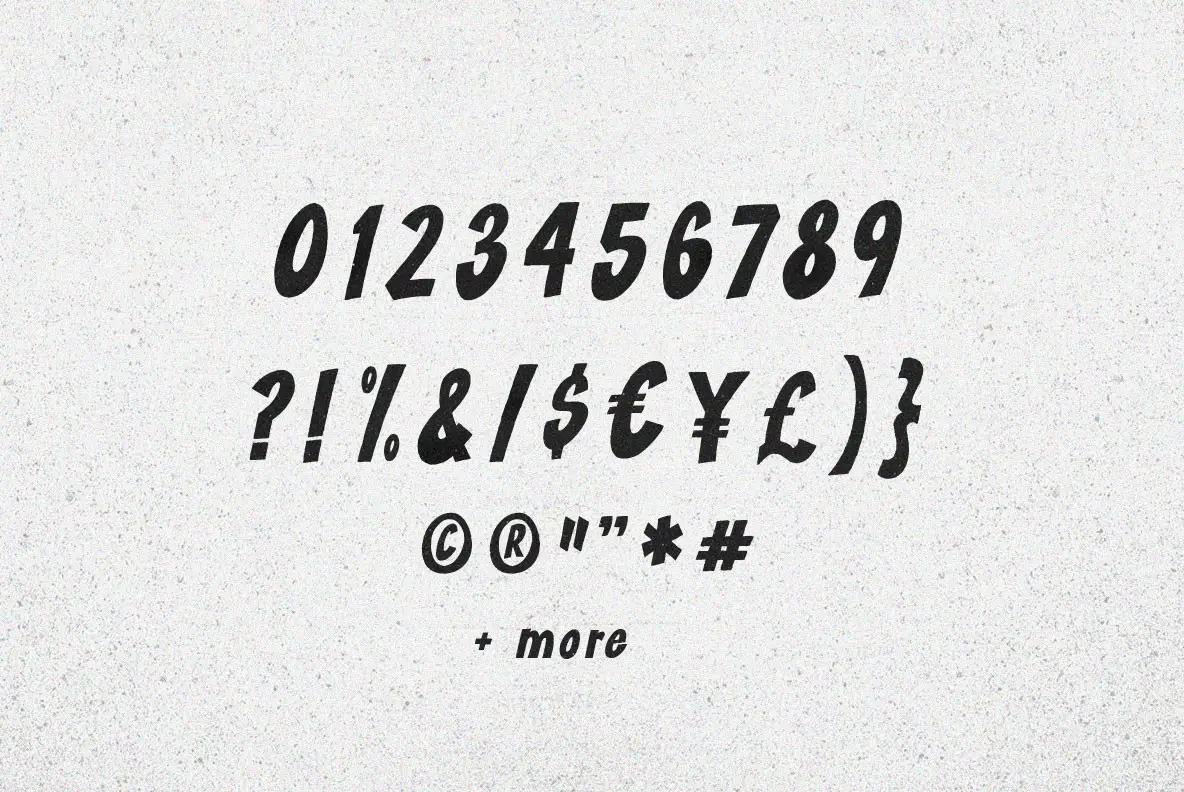
Blast Off Font . The licence mentioned above the. Designer benjamin o'sullivan description “blast off!” was built with fontstruct
This font features bold, dynamic strokes with a playful and energetic style. For free, view sample text, rating and more on fontsgeek.com The licence mentioned above the. Scalable commercial licensing available for all media.
Blast Off Font - Scalable commercial licensing available for all media. View font details, character map, custom preview, downloads, file contents and more. The licence mentioned above the. This font features bold, dynamic strokes with a playful and energetic style. The characters are slightly slanted, giving a sense of.